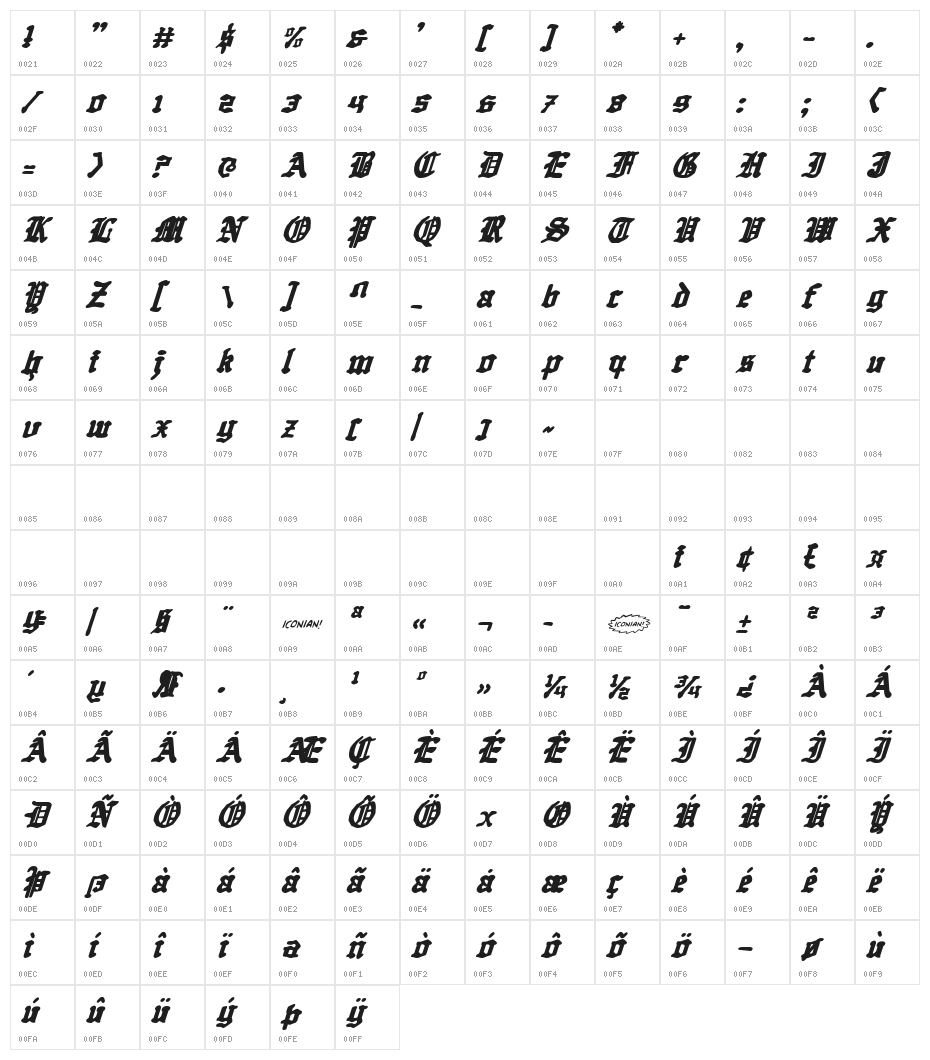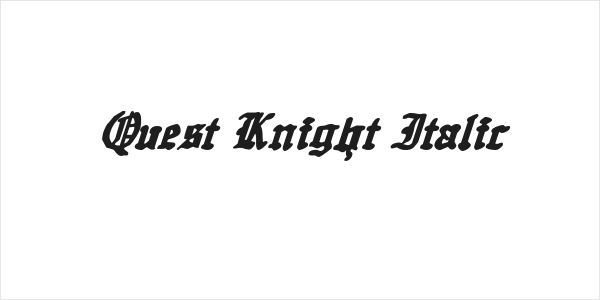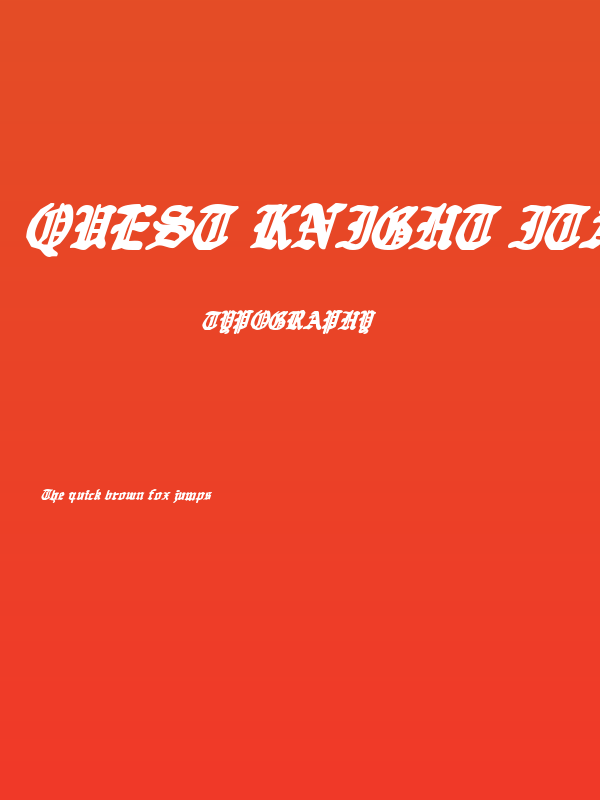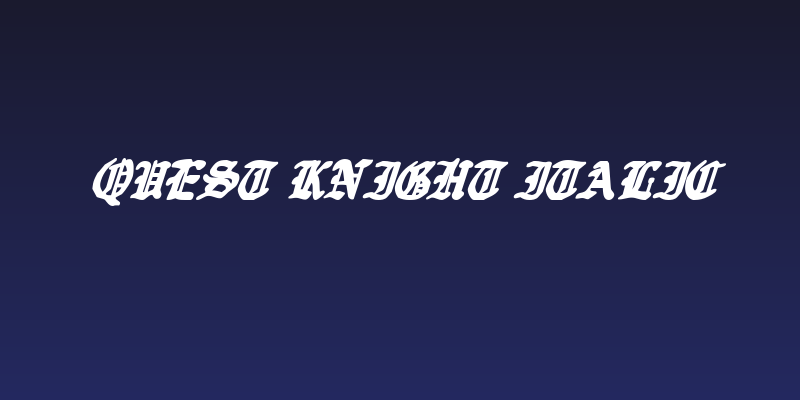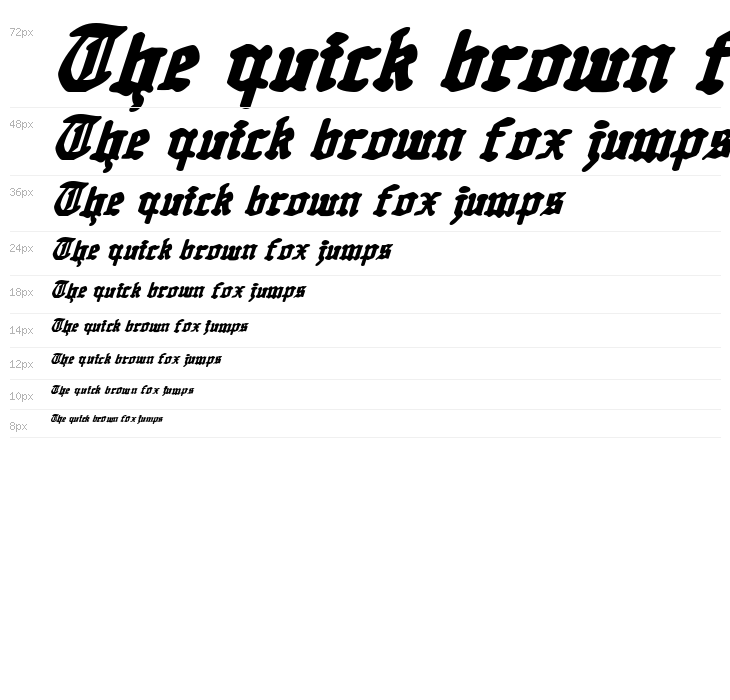
Quest Knight Italic Font
Quest Knight Italic Description
This font features a bold and dramatic style with a strong blackletter influence, characterized by its sharp, angular lines and intricate detailing. The uppercase and lowercase letters exhibit a consistent slant, enhancing the italicized appearance. The numerals and special characters maintain the same boldness and stylistic elements, ensuring a cohesive look across all characters. The font's overall aesthetic is reminiscent of medieval script, making it ideal for projects that require a historical or gothic touch. Its bold strokes and high contrast make it stand out, while the intricate design elements add a layer of sophistication.
| Overall Style | Gothic |
| Proposed Projects | Ideal for use in branding, posters, book covers, or any project requiring a medieval or gothic aesthetic. |